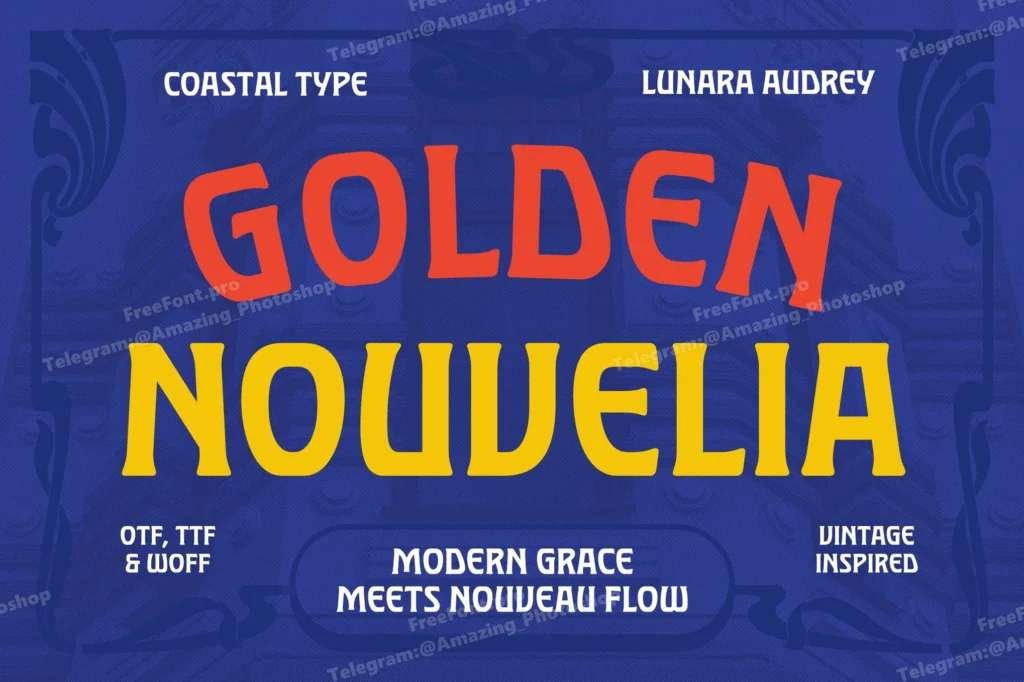
Golden Nouvelia is a captivating typeface that blends the ornamental charm of Art Nouveau with a modern, rounded-edge twist. Inspired by the flowing lines and floral elegance of the early 1900s, this font brings a fresh softness to vintage aesthetics—making it perfect for contemporary designs that crave a touch of timeless beauty.
With its gentle curves and elegant forms, Golden Nouvelia exudes both sophistication and warmth, striking a balance between artistic detail and modern simplicity.
Ideal For:
Bold, expressive posters
Dreamy album covers
Luxe product packaging
Stylish branding and editorial
Romantic wedding stationery
Whether you’re evoking nostalgia or crafting something entirely new, Golden Nouvelia adds a magical, whimsical touch to every letter.